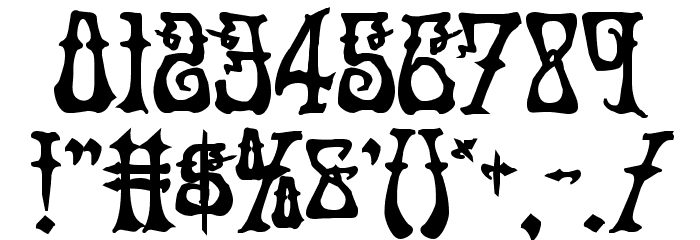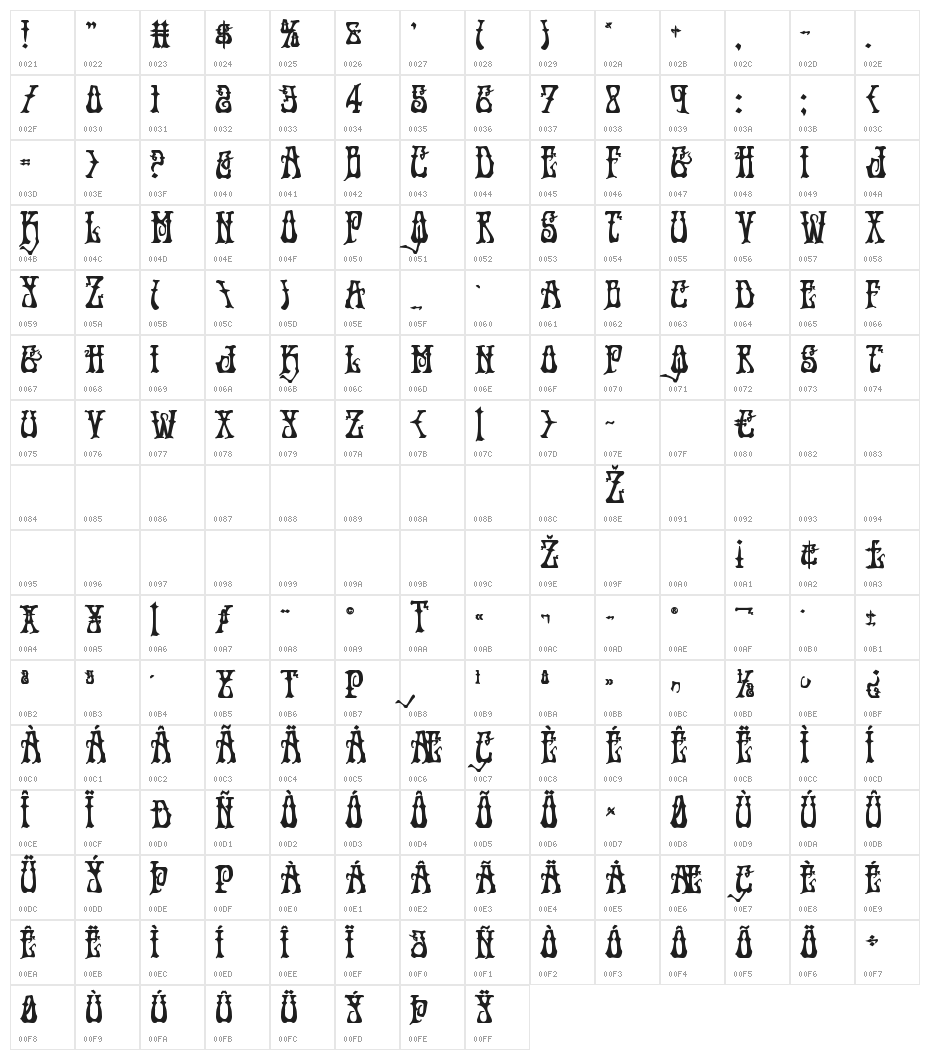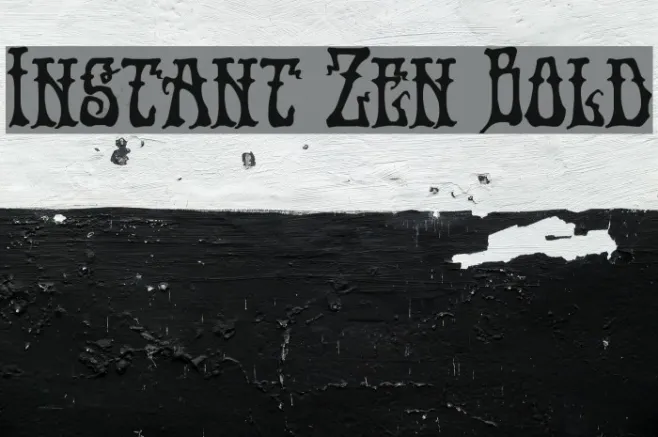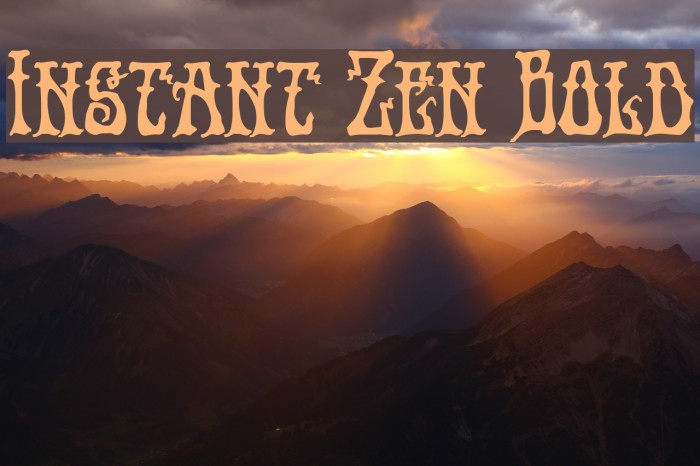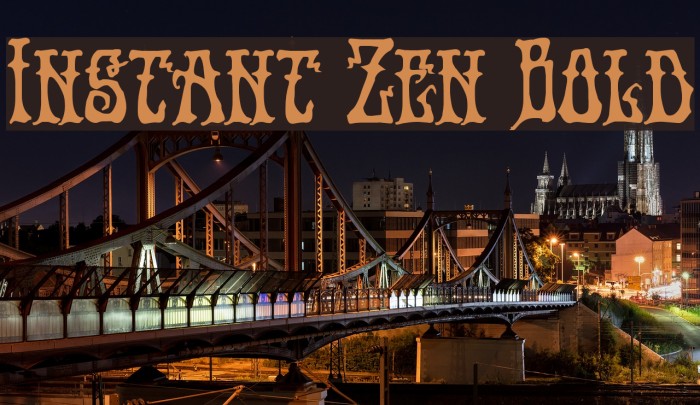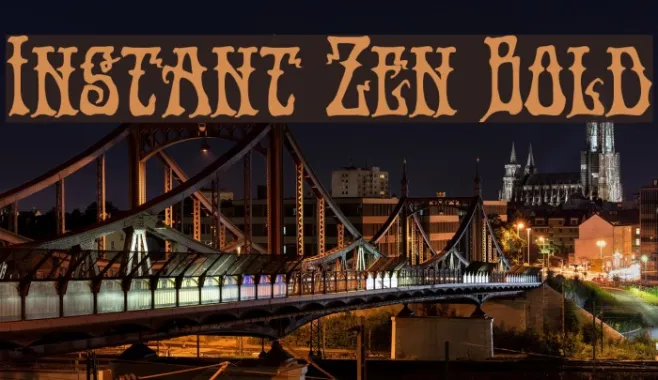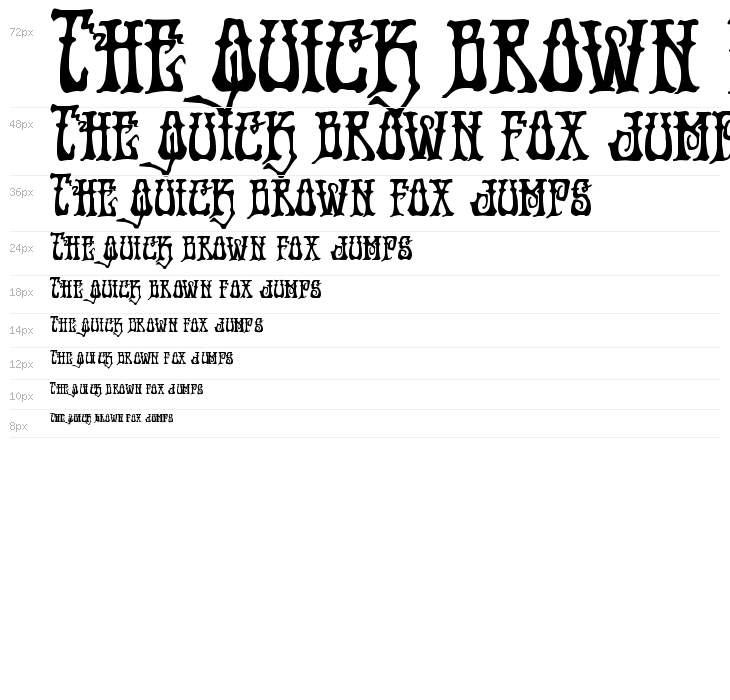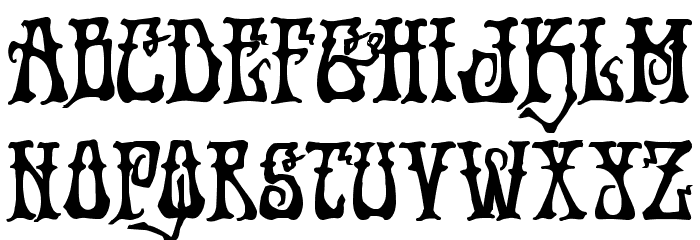
Instant Zen Bold Font
Instant Zen Bold Description
This font exhibits a bold and dramatic style with a distinct gothic influence. The characters are heavily stylized, featuring sharp edges and intricate details that give them a unique, almost hand-carved appearance. The uppercase and lowercase letters maintain a consistent design, with exaggerated serifs and decorative elements that enhance their visual impact. Numbers and special characters follow the same ornate style, ensuring uniformity across all glyphs. The overall aesthetic is reminiscent of medieval or fantasy themes, making it ideal for projects that require a strong, eye-catching typeface.
| Overall Style | Gothic, Decorative |
| Proposed Projects | Suitable for fantasy book covers, gothic-themed posters, video game titles, and branding for alternative or niche markets. |